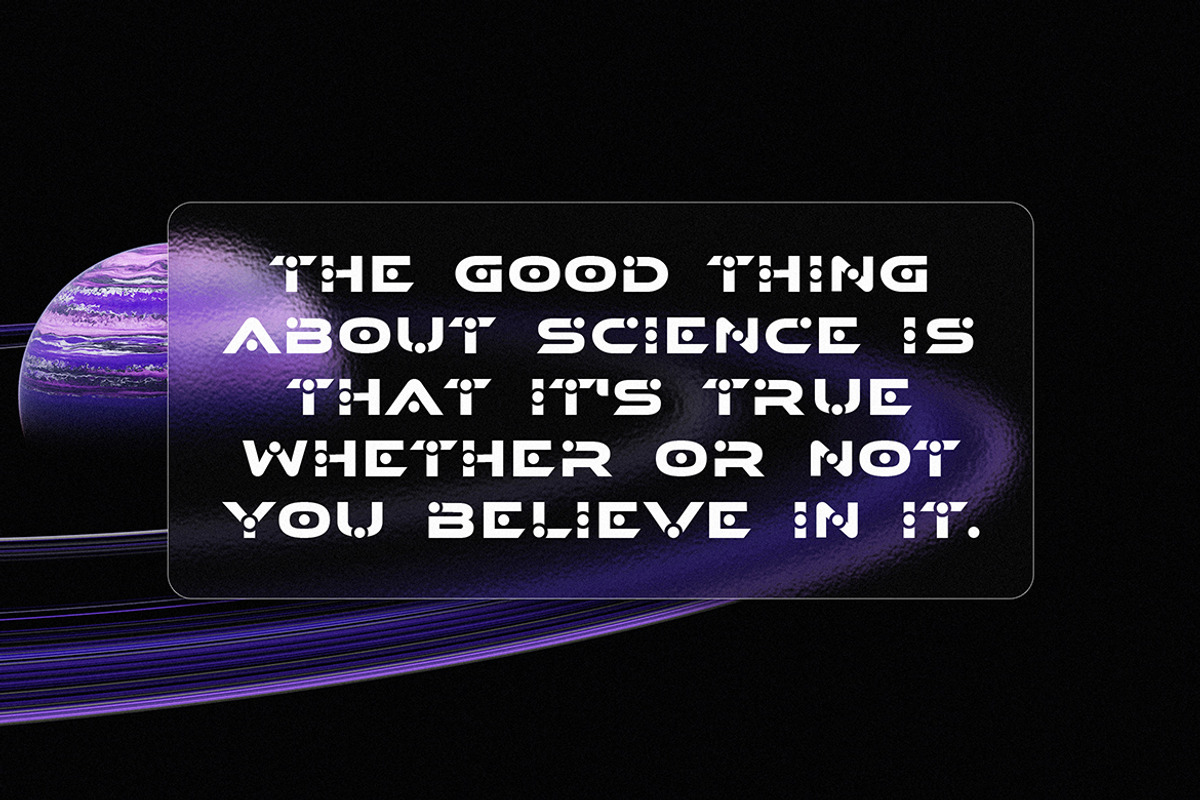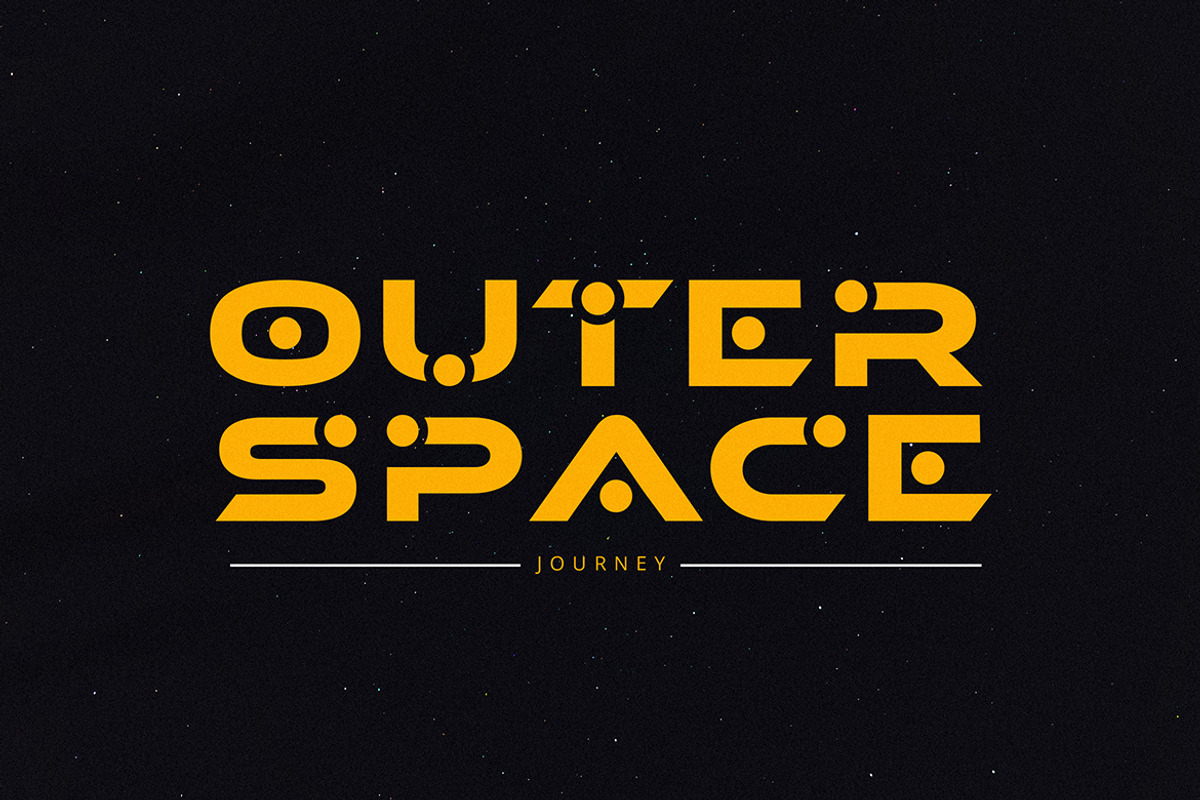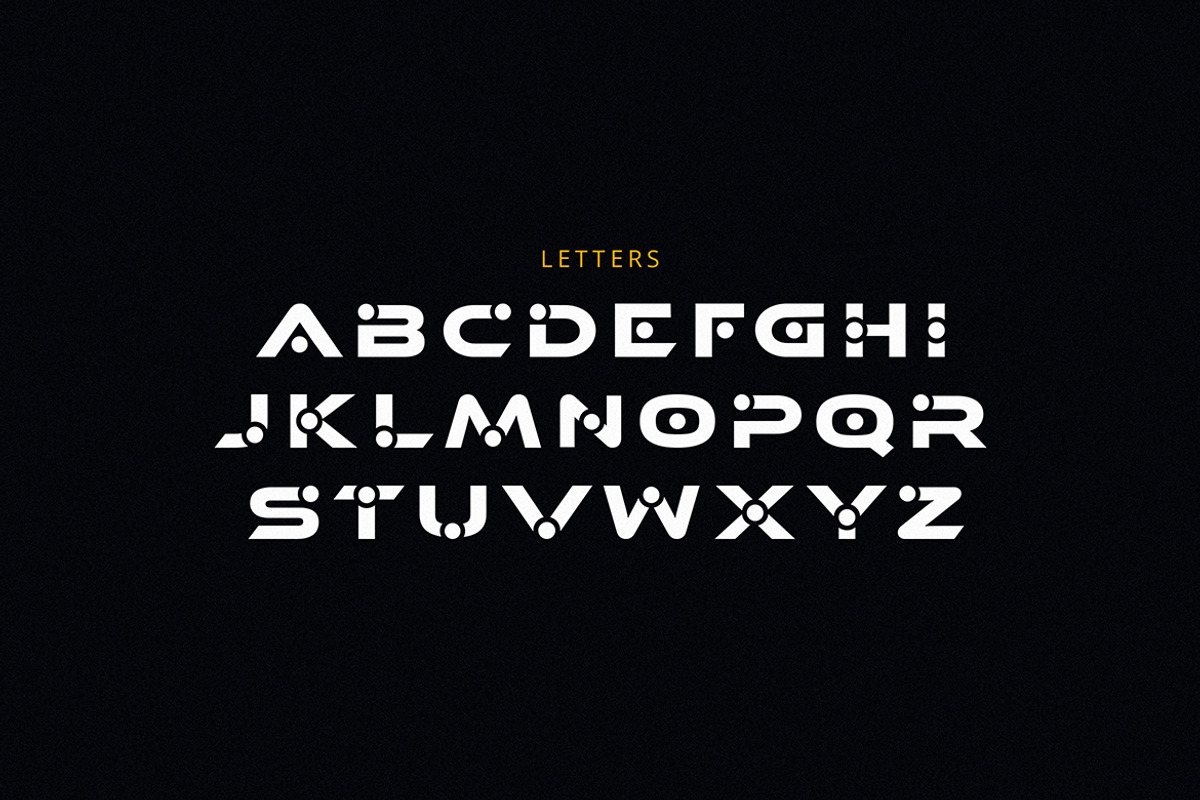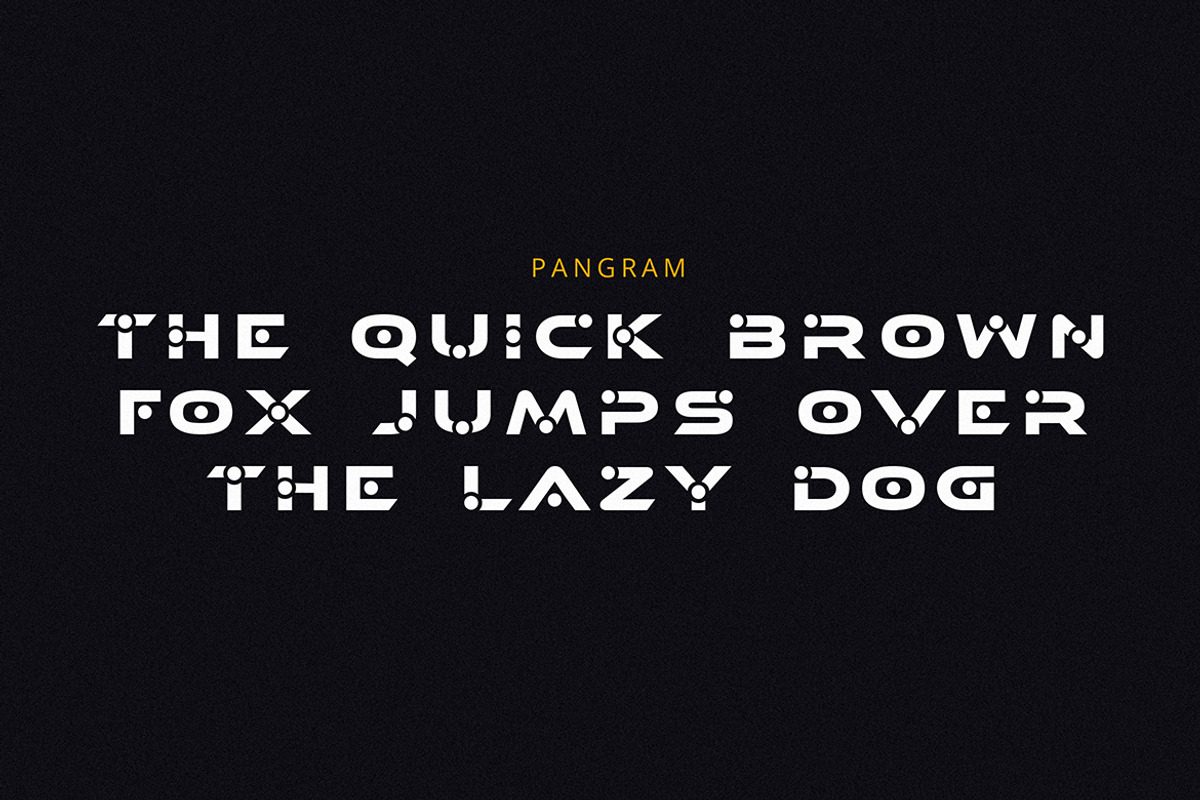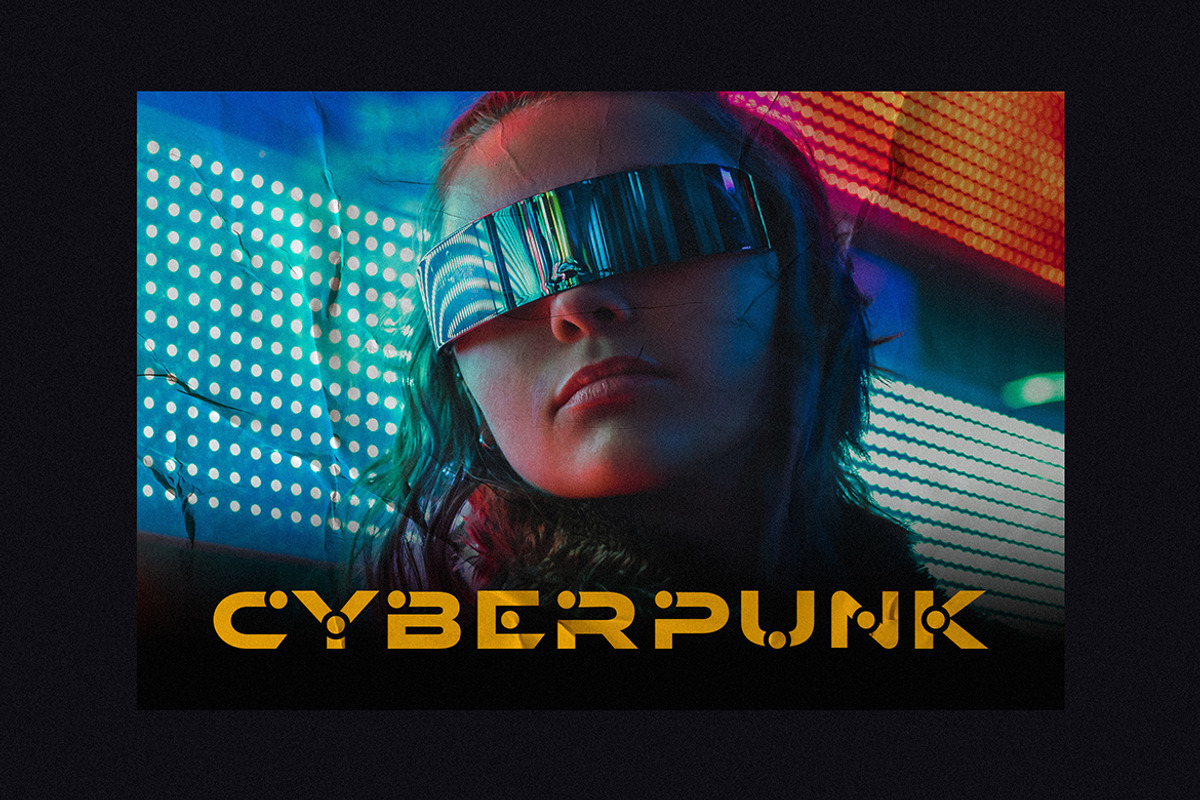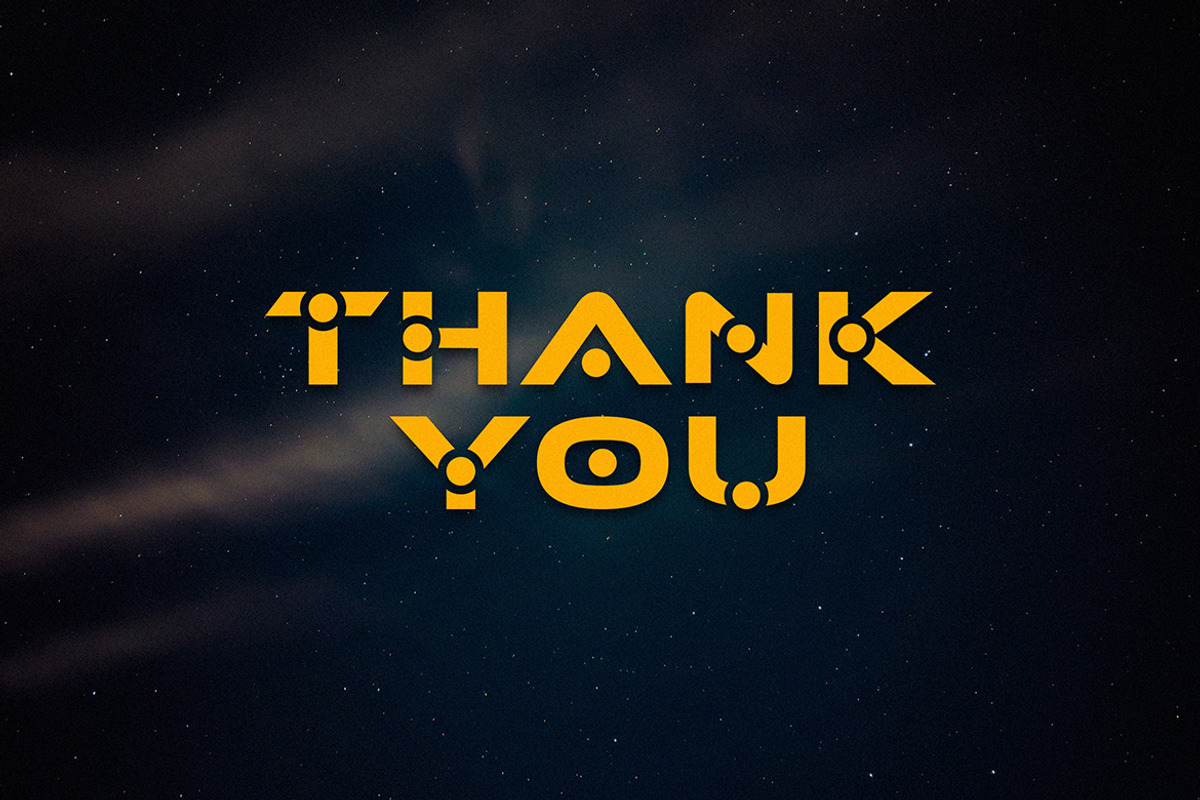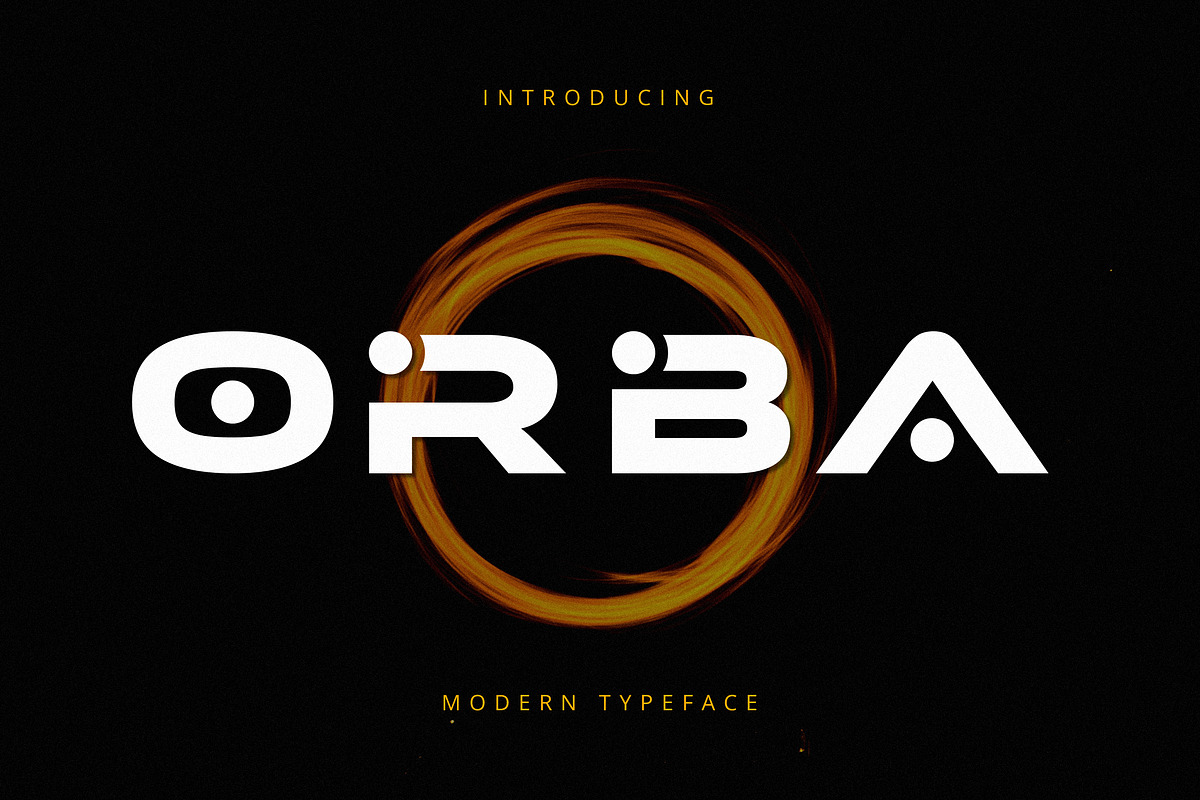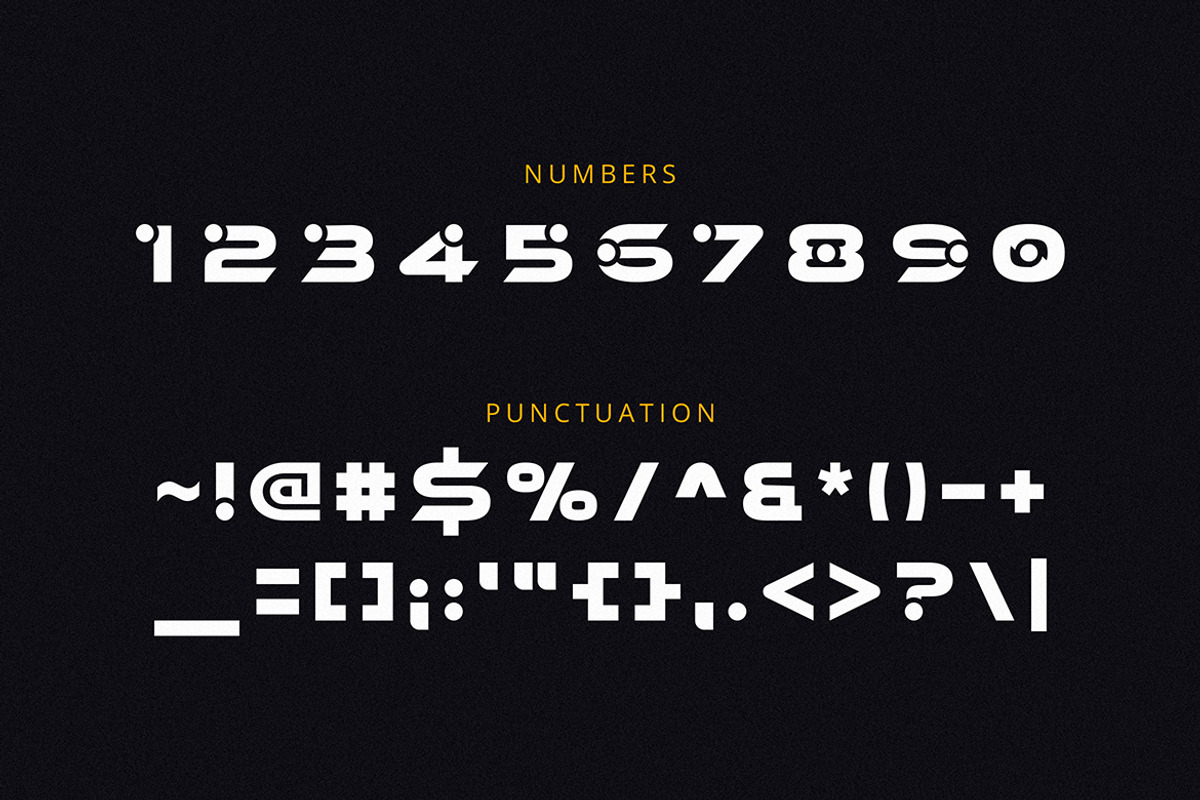
Orba
Orba is a Futuristic Font that we designed with original touch for your needs. This cool font is complete with Uppercase, Lowercase, Numeric & symbols. This very strong and sharp font is perfect for titles, typography, posters, magazines, brochures, packaging, Websites and much more for your design needs, making your designs more cool.